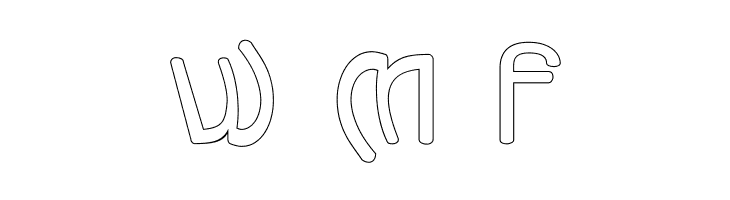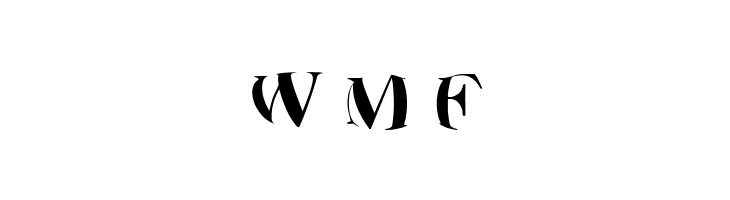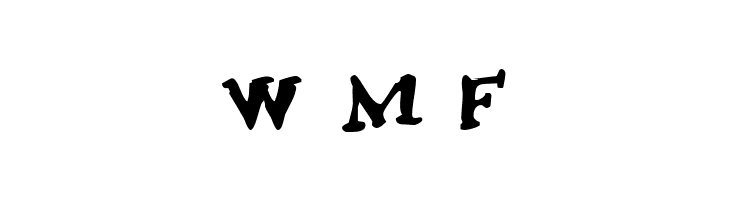
A bold, condensed font with a modern and impactful style.
A dripping, grotesque font ideal for spooky themes.
A playful, hand-drawn font with irregular, wavy lines and a whimsical style.
A playful, modern font with rounded and angular elements, offering a distinctive flair.
An ornate and decorative font with intricate flourishes and high contrast.
A modern, italicized font with a sleek and dynamic style.
A bold, geometric font with a modern and assertive style.
An elegant cursive font with flowing, calligraphic strokes.
A geometric and abstract font with uniform symbols enclosed in squares.
A bold, angular font inspired by ancient runic alphabets.
A bold, rounded font with a playful, modern aesthetic and outlined characters.
A vintage-style font with a distressed, letterpress appearance.
A playful, hand-drawn font with uneven strokes and a whimsical style.
A whimsical, playful font with uneven, hand-drawn letterforms.
A modern, angular font with a futuristic and edgy design.